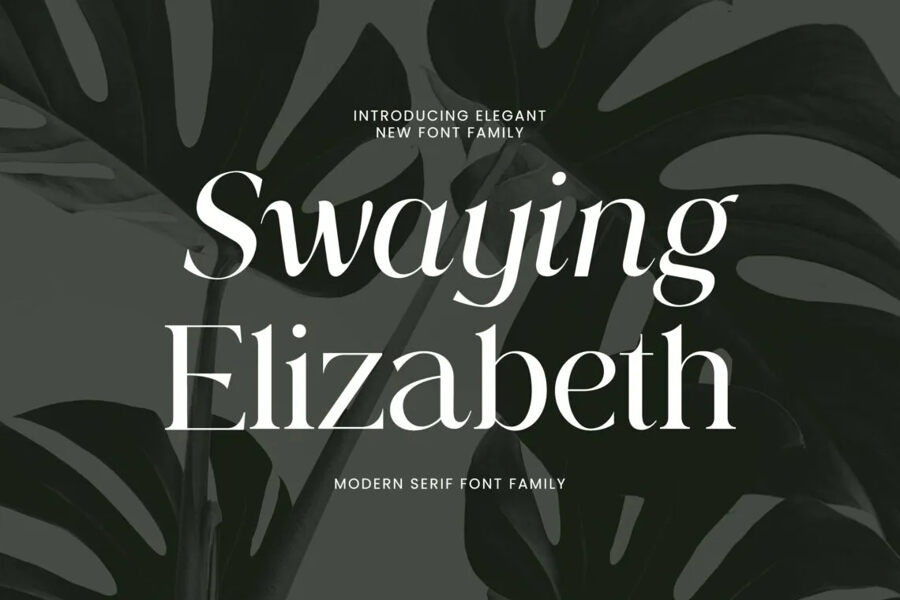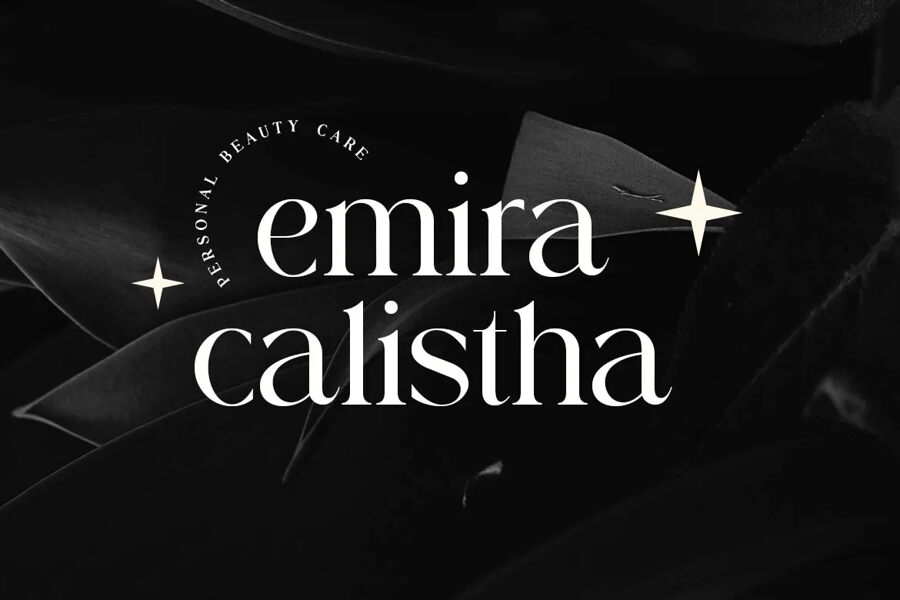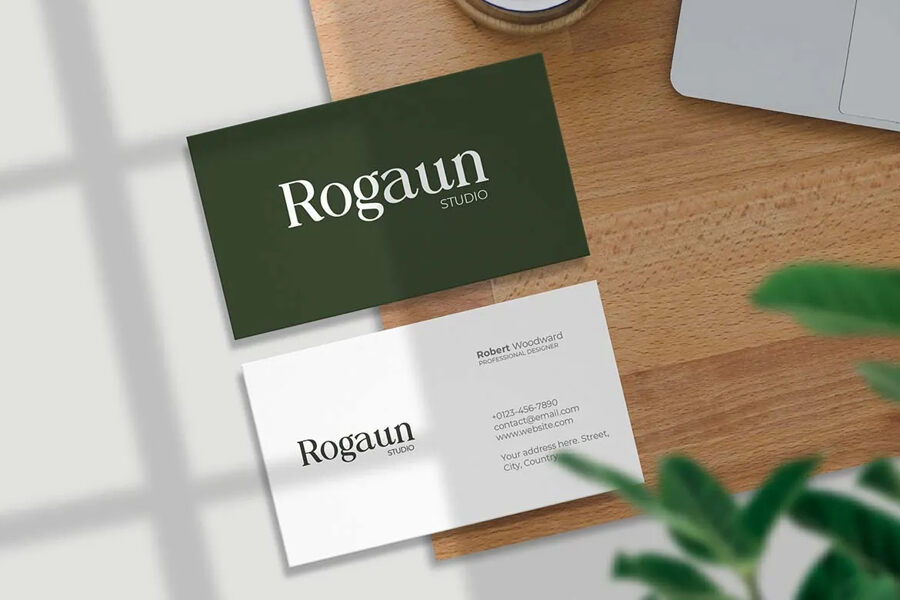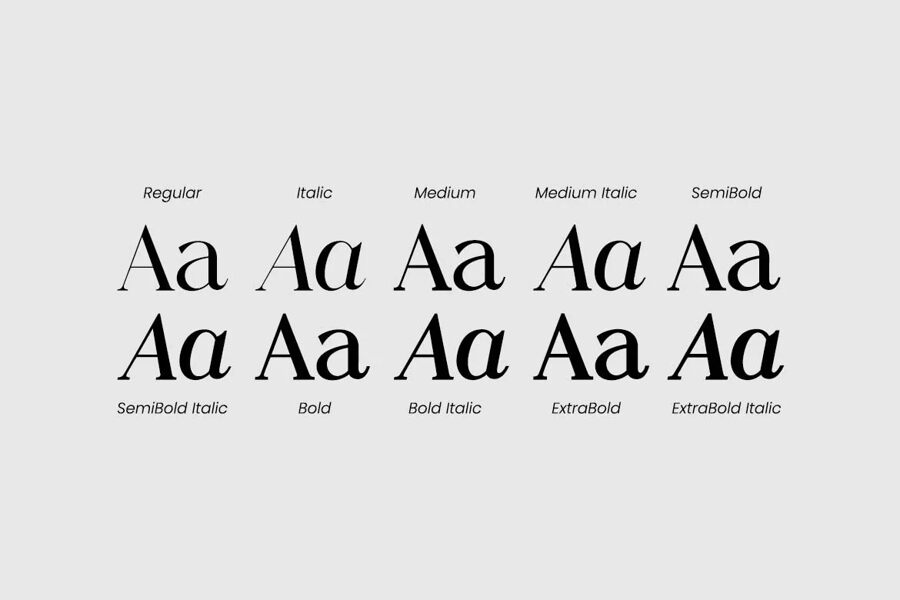
Swaying Elizabeth Font Family
The Swaying Elizabeth font is a sophisticated modern serif family. Its classy and stylish design makes it perfect for various projects, including logos, wedding stationery, and magazine covers. It’s also ideal for fashion branding and editorial design, conveying both masculine and feminine qualities. This versatile font is suitable for a range of uses, from elegant typography quotes to website headers and more.